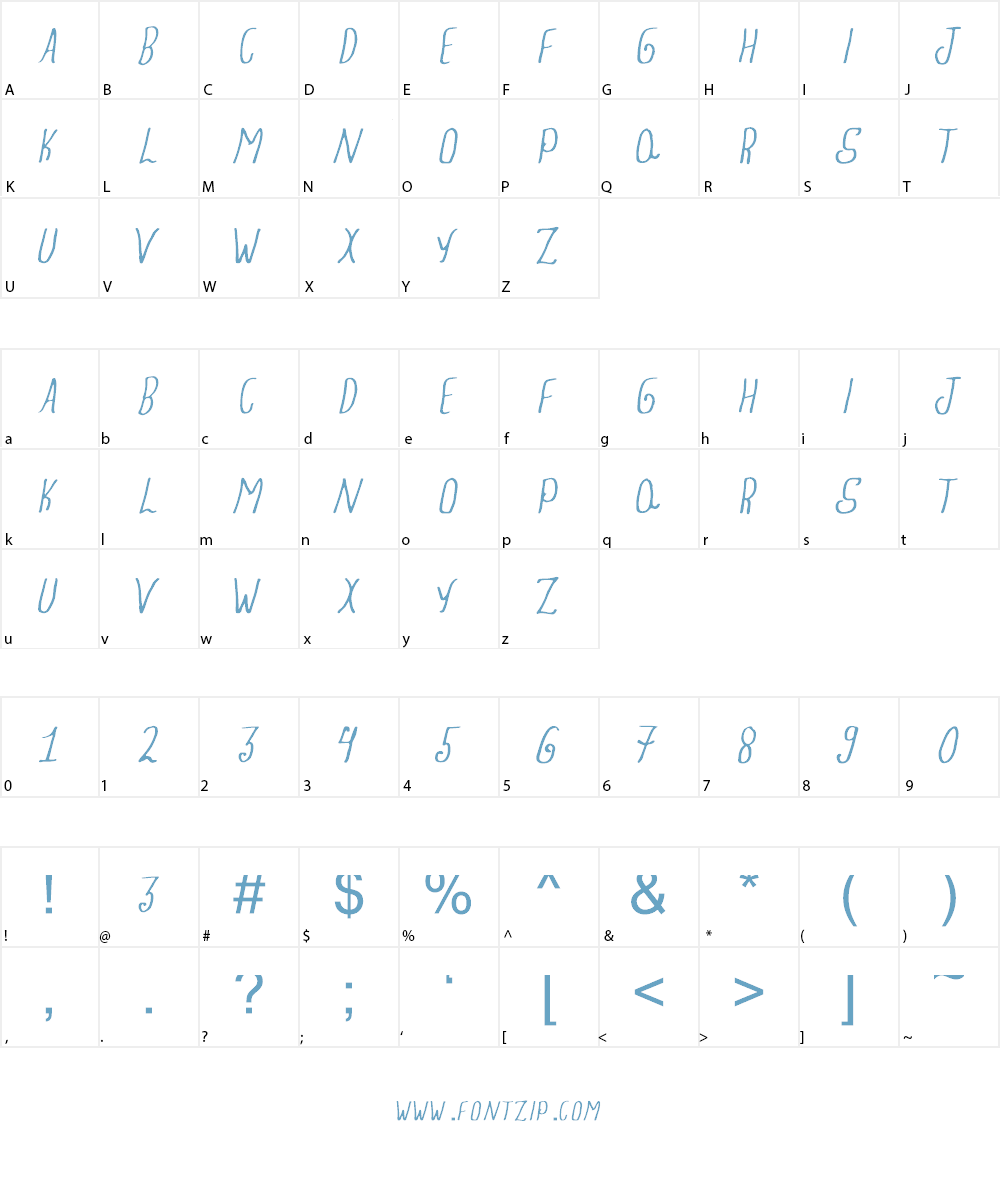
Amber (Blue Sky) handmade font is good for grunge typography and these are one of the most useful fonts these days. They are multipurpose and people use it to showcase their products. We hope you will like this one.